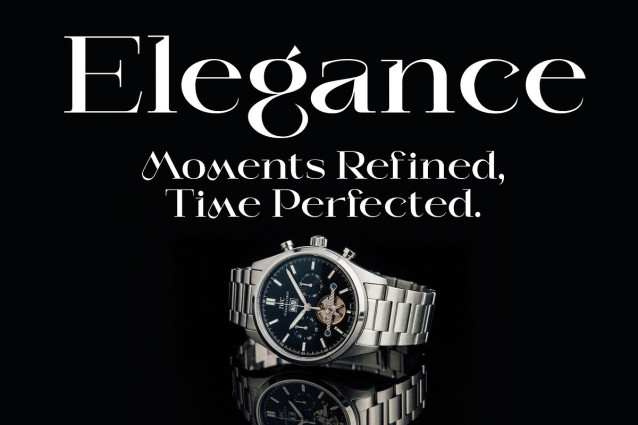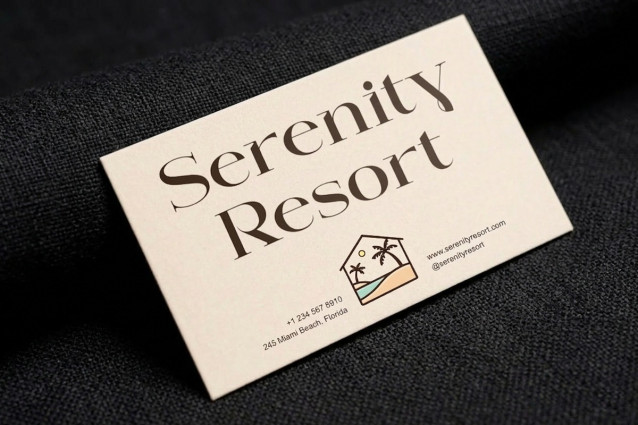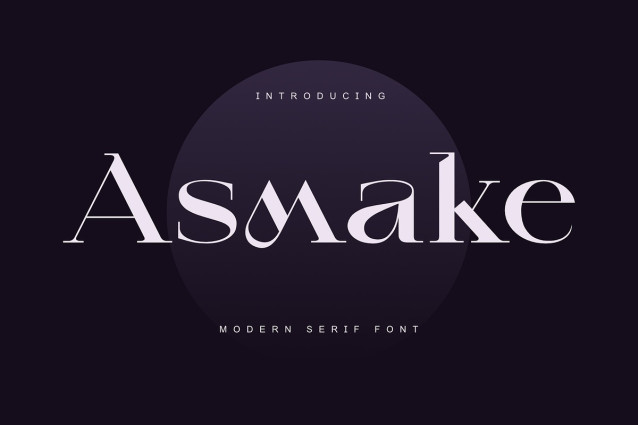
Asmake Font
Asmake Font is a modern serif font designed for logos, editorial layouts, and branding projects. With refined curves and a clean, timeless style, it creates a balanced look between classic and contemporary design.
Its carefully crafted serif details make Asmake suitable for packaging, magazines, branding, and lifestyle visuals. Each character is designed to deliver clarity, consistency, and a strong visual presence.